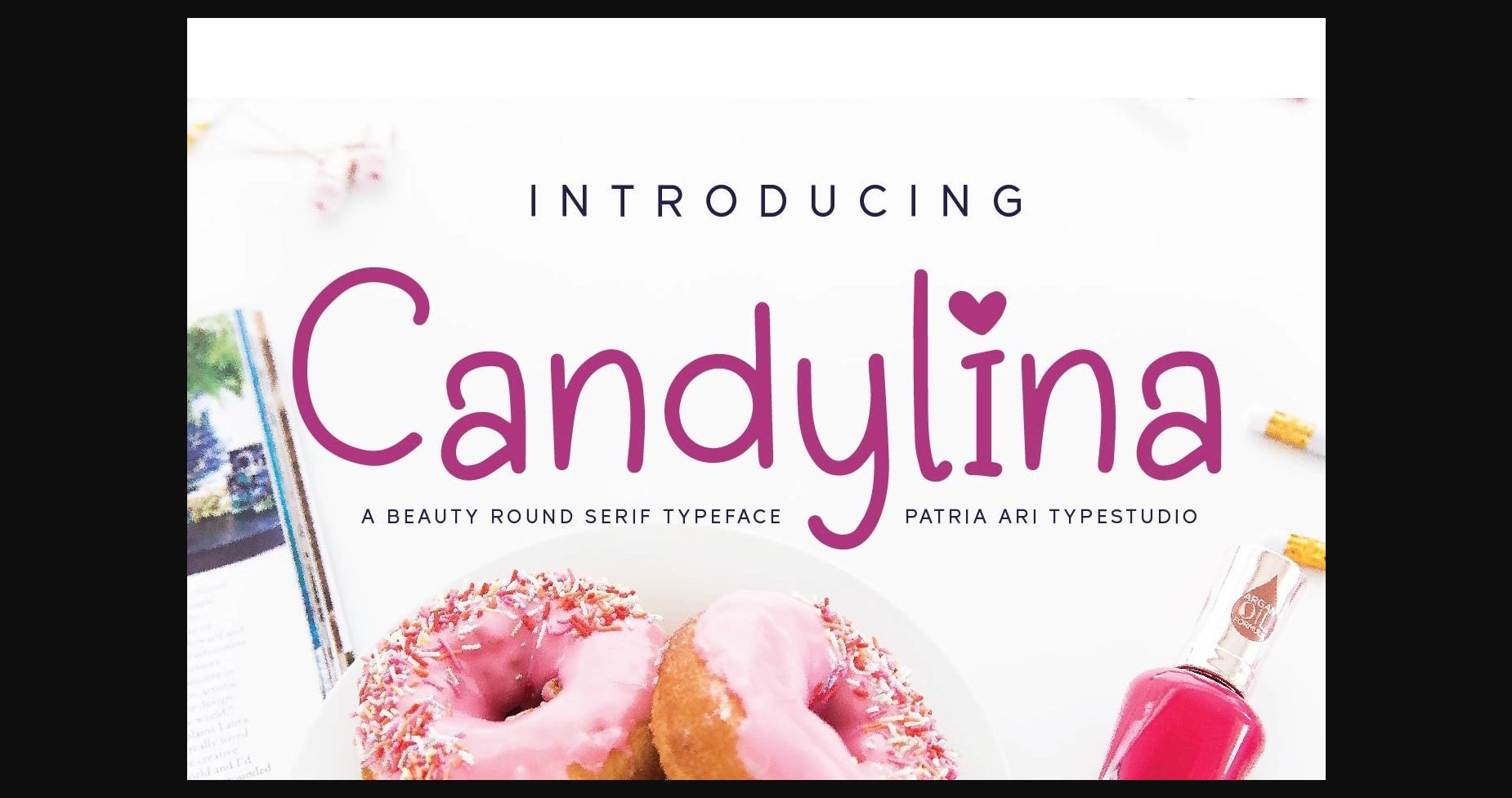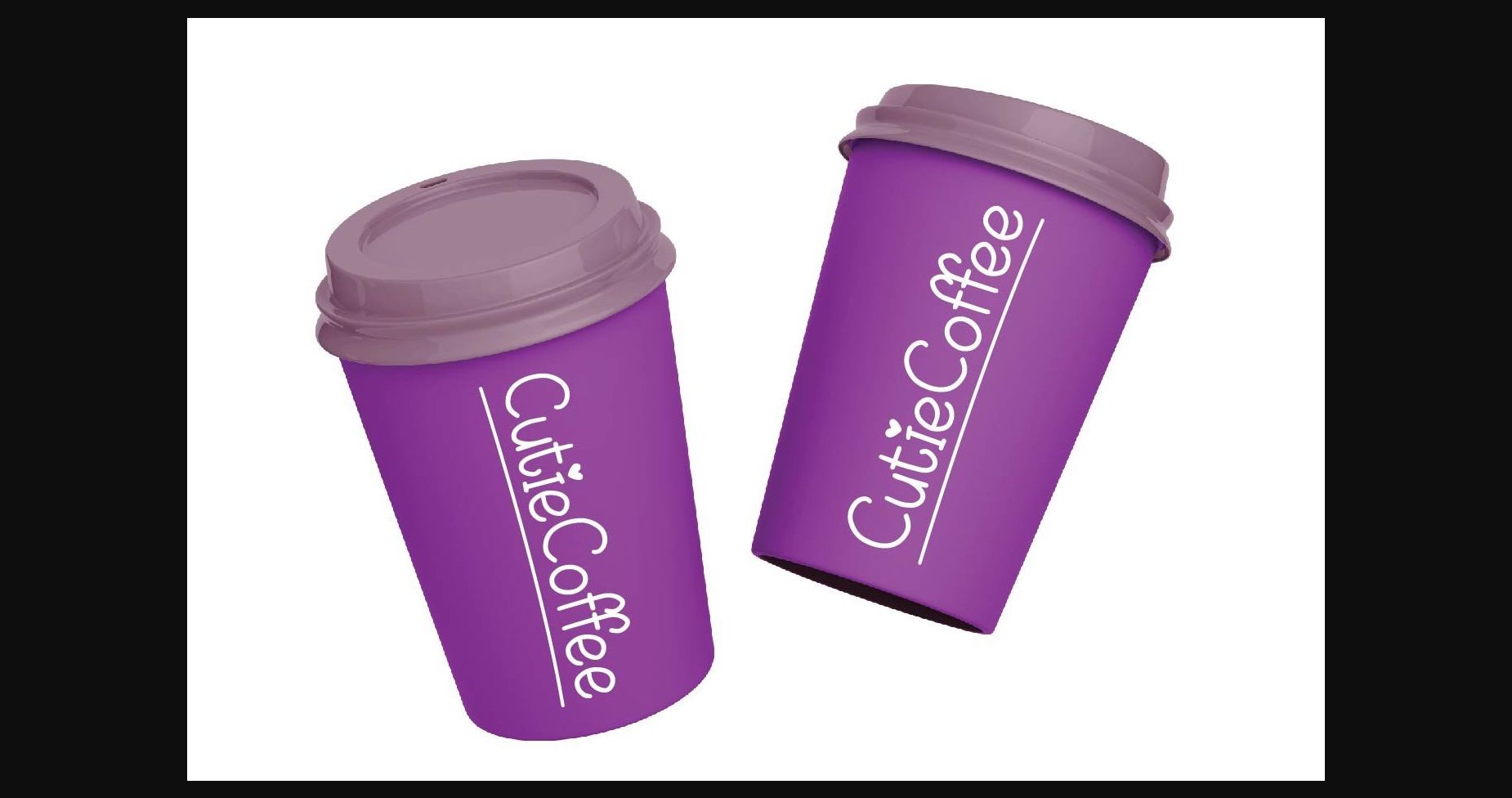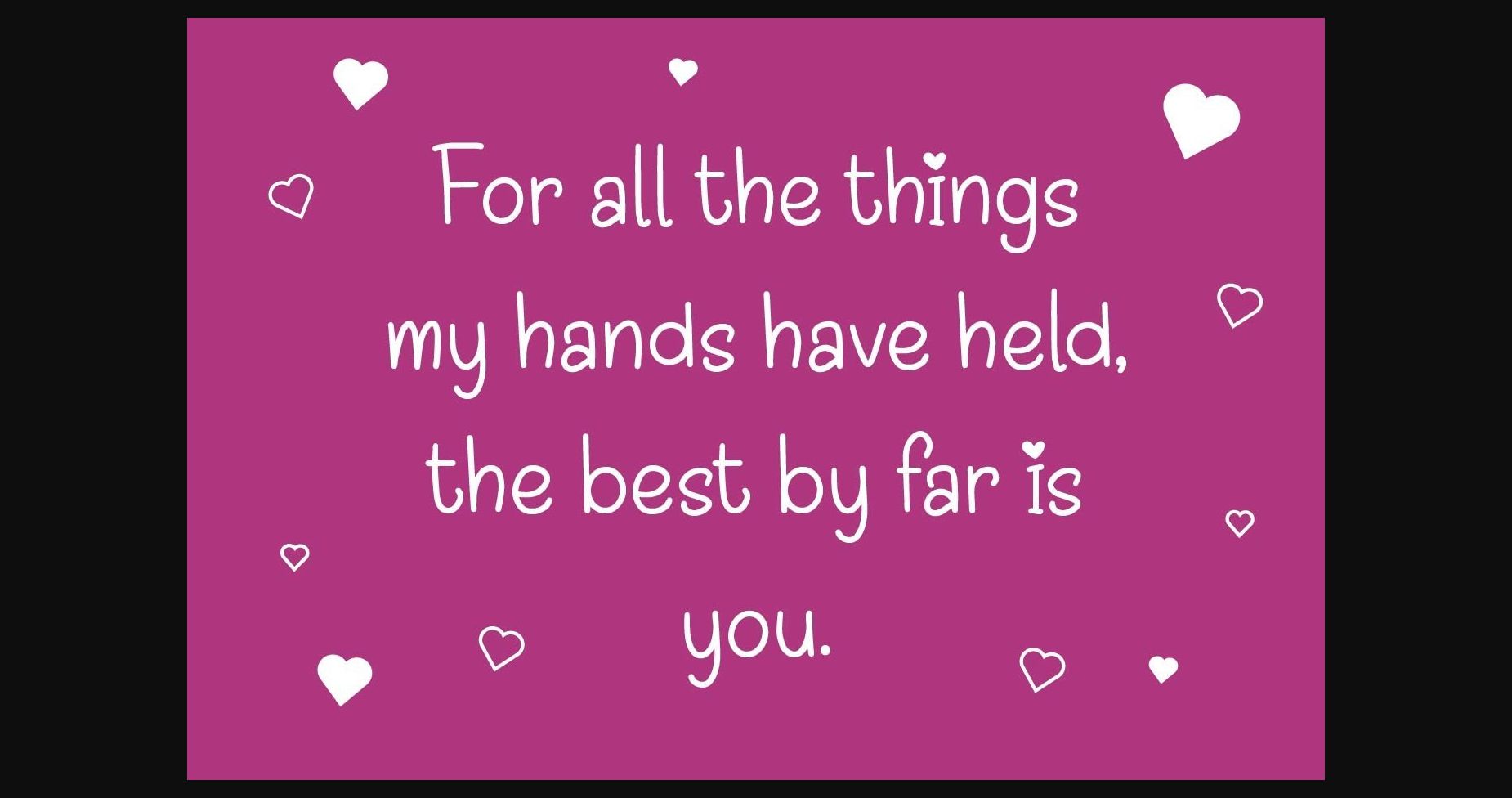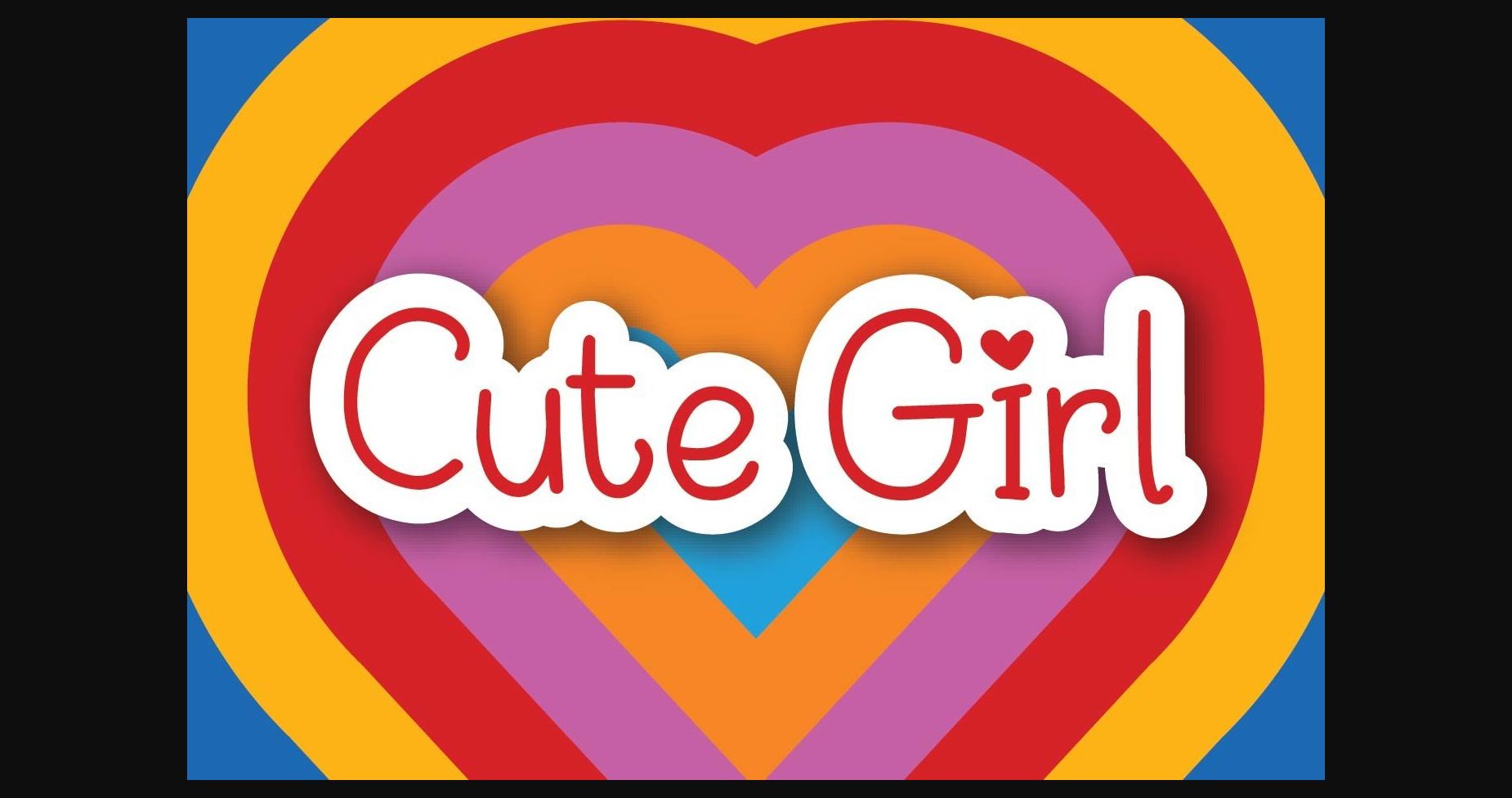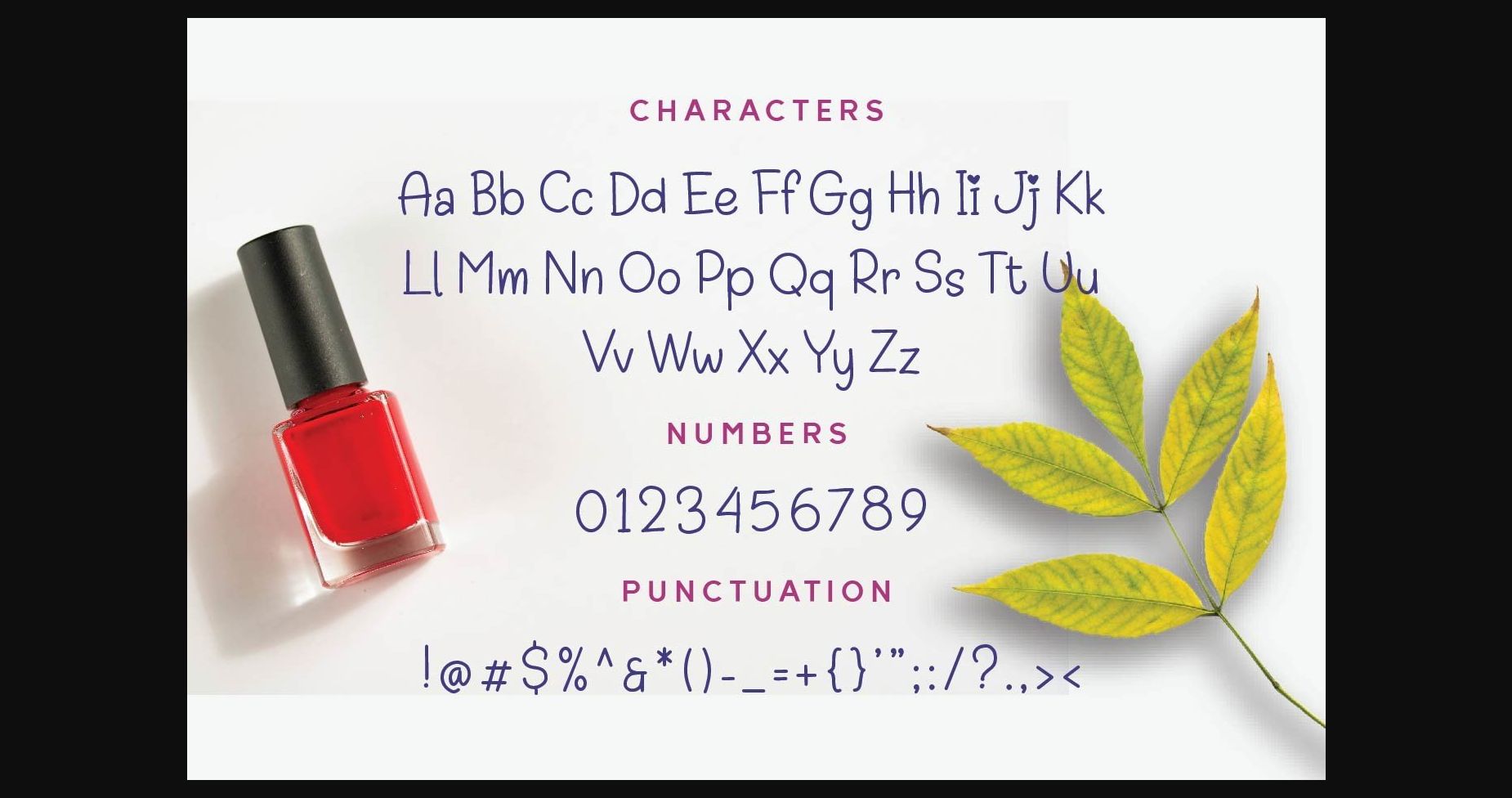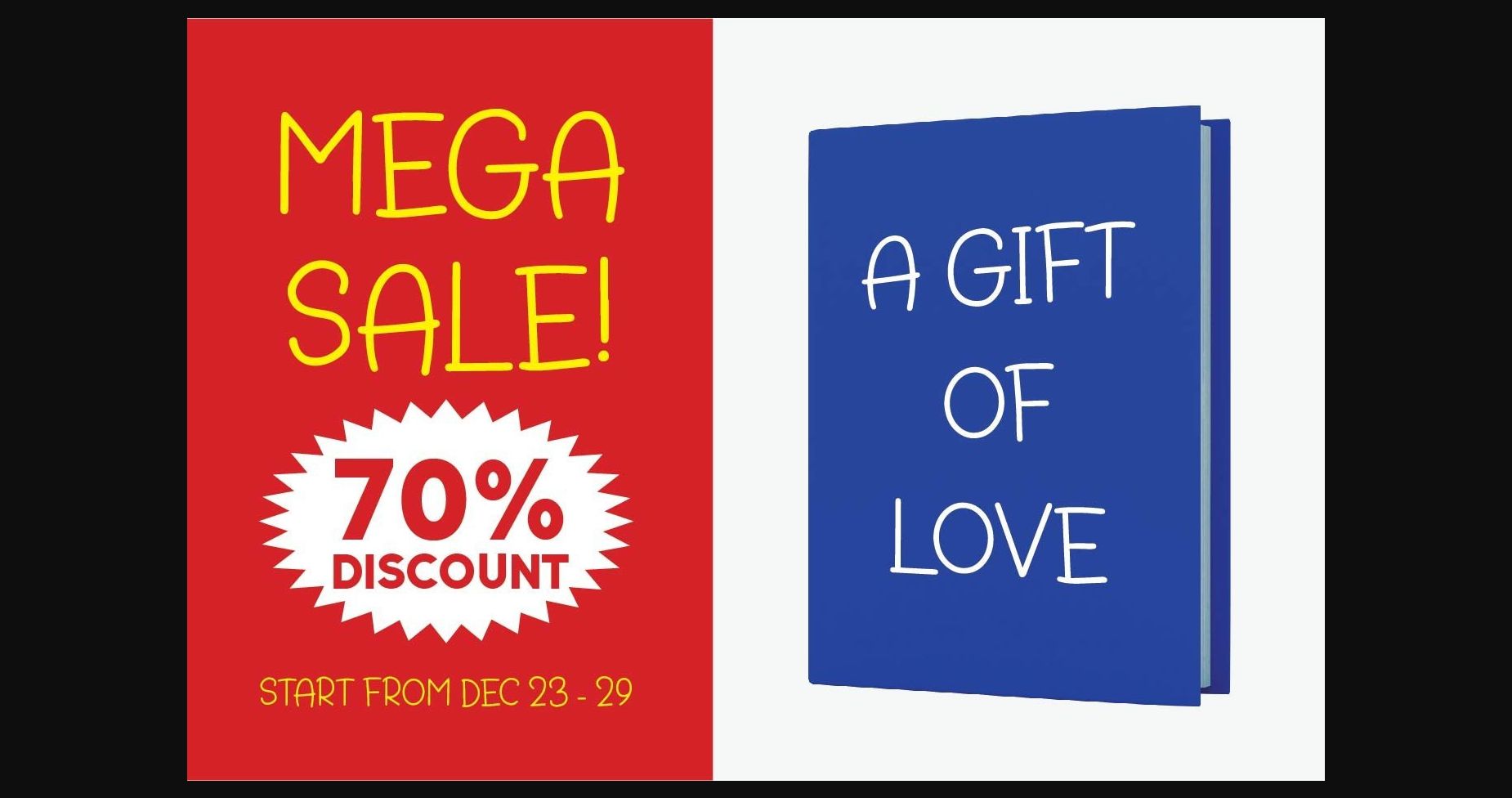
About Candylina Font
Candylina is a delicate and well-rounded sans serif font, perfect for crafty projects that need authentic typography! Use it for wedding invitations, birthday cards, personal branding, elegant logos, and more, and your designs will stand out.